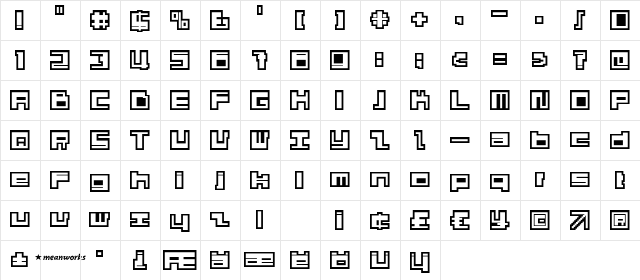
Limbex openVaria
Design Context for Limbex Typeface
Limbex is a composed and adaptable typeface that performs quietly and consistently across a wide range of design contexts.